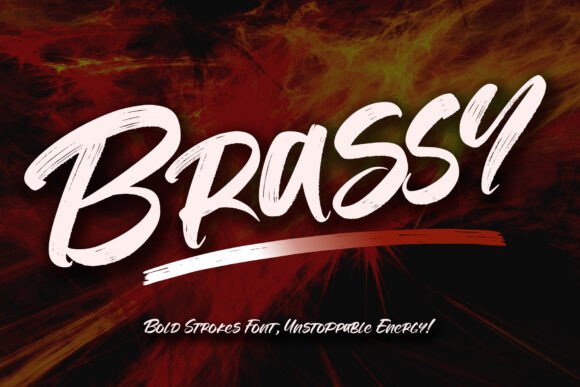
Unleash Your Creativity with Brassy Font
Have you ever been in the middle of a design project, and suddenly, you’re stuck on finding the perfect font? I recall a recent experience where I was working on a bold branding campaign for a local skate shop. The client wanted a font that exuded confidence, energy, and a bit of an edgy vibe. After hours of scrolling through font libraries, I stumbled upon Brassy – a bold and energetic brush font that completely transformed my design. In this article, I’ll share my journey with Brassy, its features, and how you can make the most of this incredible font in your creative projects.
What Makes Brassy Stand Out?
Brassy is more than just a font – it’s a statement piece. With its powerful strokes and rugged, textured finish, it brings a dynamic, handcrafted touch to your designs. This font is perfect for striking logos, bold headlines, and edgy branding, radiating movement and intensity. Its fluid letterforms and expressive glyphs add character and impact, making your designs truly unforgettable.
Here’s what I love about Brassy:
- ✨ Unique Texture: The rugged, textured finish gives Brassy an authentic, handcrafted feel that’s hard to replicate with other fonts.
- ✅ Highly Legible: Despite its bold nature, Brassy remains surprisingly legible, even at smaller sizes.
- 💥 Expressive Glyphs: The font comes with a range of expressive glyphs and stylistic alternates, allowing you to add personality to your text.
- 🔍 PUA Encoding: With PUA encoding, accessing unique features and glyphs is seamless, making it easy to get creative.
And here are a few quirks to keep in mind:
- 🤔 Limited Use Cases: Brassy is a bold font, and while it’s amazing for headlines and logos, it might not be the best choice for body text or more formal designs.
The Story Behind Brassy
Brassy was inspired by the raw energy of street art and the bold statements made by graffiti artists. Its creator aimed to capture the essence of urban expression and translate it into a digital font that could be used by designers worldwide. The result is a font that’s both fierce and beautiful, capable of elevating any design with its unique character.
| What is Brassy Font? | Brassy is a bold and energetic brush font with a rugged, textured finish, perfect for striking logos, bold headlines, and edgy branding. |
| Is Brassy suitable for body text? | No, Brassy is best used for headlines, logos, and short text elements due to its bold nature. It’s not ideal for body text or more formal designs. |
| Does Brassy support OpenType features? | Yes, Brassy comes with PUA encoding and supports OpenType features, providing access to a range of stylistic sets, glyphs, and alternates. |
Brassy is more than just a font – it’s a tool to amplify your creative voice. Whether you’re a designer, crafter, or hobbyist, this bold and energetic brush font can add a dynamic touch to your projects. Experiment with its features, explore its possibilities, and let Brassy bring your designs to life!